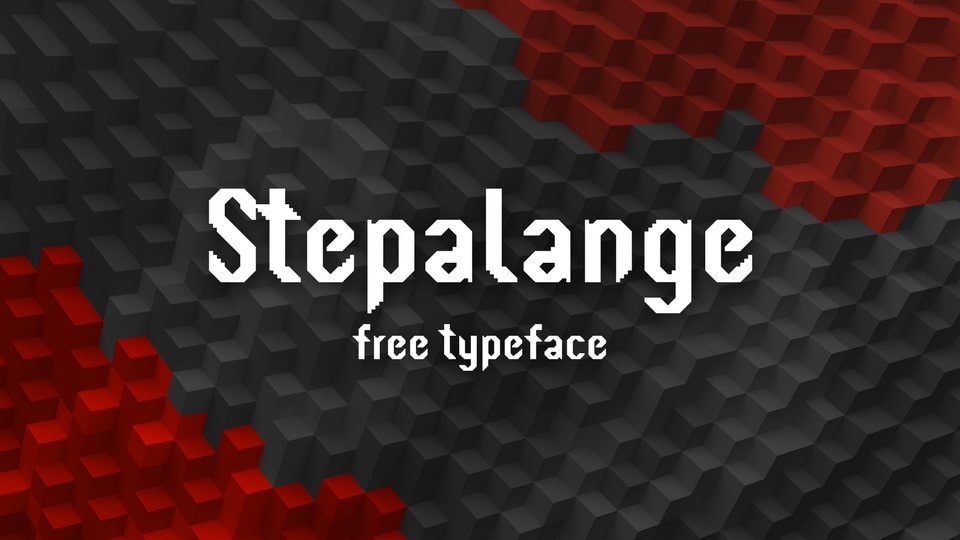
Download Stepalange font, a pixelated display typeface that captures the essence of retro gaming, early computer interfaces, and digital nostalgia.
Designer: Szymon Furjan